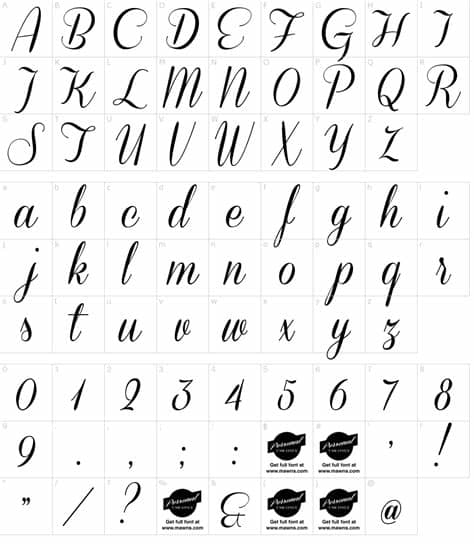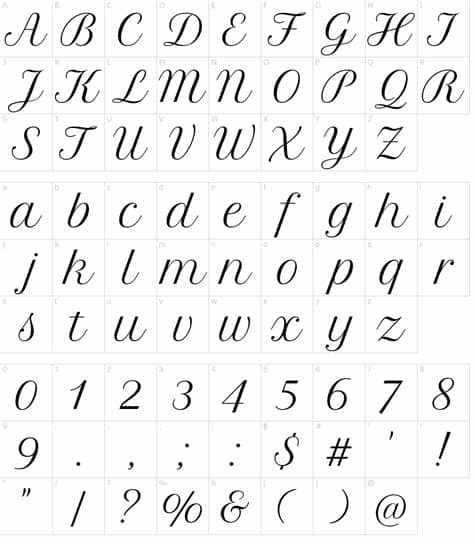
Script Cursive Font Generator Name Rusty : Cursive Like Text Generator - ππΎπ»πΌπ²πΏπ βπ²π΄π β±πͺπ·π¬π β±πΈπ·π½πΌ : What can cursive font generator do for you:. Here are some valuable assets to enable you to locate the correct font online for your structure: This tool generates formal, flowing, script text (ππΎπβ― ππ½πΎπ) that can be copied/pasted into facebook status messages, twitter updates, youtube comments, etc. We all need fonts, they have become a significant element in the world of cyber and technology, we use fonts while typing sentences, making documents, designing logos, making presentations, emblems, buntings, flyers and even all possible communicative resources fonts are effective. Choose from 8 cursive handwriting fonts. It uses ncurses by default, but other backends are available.
One handwriting font for signature we like is mΓ₯ns grebΓ€ck's signerica. Leading to the name double struck. Votes, rated based on results identification. The best selection of script fonts for windows and macintosh. Here are some valuable assets to enable you to locate the correct font online for your structure: Similar fonts for cursive script from myfonts.com. This tool generates formal, flowing, script text (ππΎπβ― ππ½πΎπ) that can be copied/pasted into facebook status messages, twitter updates, youtube comments, etc. Font generator & font changer ✓.
Cursive fonts (otherwise called content, calligraphy, or manually written fonts) are promptly accessible online for copy and past. Cursive letters as the name suggests are writing letters in curved forms. The signature generator takes your name and transforms it into something special with an exciting typeface! Ready to personalize and share in facebook and twitter. Choose from 8 cursive handwriting fonts. Today's video will be part 1. Here are some valuable assets to enable you to locate the correct font online for your structure: Cursive font generator will let you have simple text or font into multiple variations of cursive writing text. Font squirrel gives some help installing fonts to windows and mac with. Demo donationware free free for personal use public domain, gpl, ofl shareware. The best selection of script fonts for windows and macintosh. What can cursive font generator do for you: Cursive is a tui (text user interface) library for rust.
On our website you can generate almost unlimited different types of fancy texts, our website is not limited to certain stylish text i mean it has options where it's creating lots of different types of stylish text fonts with the mixing of emojis and text faces with having lots of weird kinds of symbols. Many schools even stopped teaching cursive (it is thankfully making a comeback, however). Cursive script, with authentic dry brush imperfections, and a very bouncy baseline it has a perfectly paired complimentary marker font , and a super handy set of bonus swash. Cursive is a tui (text user interface) library for rust. Cursive fonts (otherwise called content, calligraphy, or manually written fonts) are promptly accessible online for copy and past.
Leading to the name double struck. Demo donationware free free for personal use public domain, gpl, ofl shareware. Ideal for logos, handwritten quotes, product packaging, header, poster, merchandise, social media & greeting cards. Today's video will be part 1. One handwriting font for signature we like is mΓ₯ns grebΓ€ck's signerica. Webfonts.pro » Π±Π°Π·ΠΎΠ²ΡΠ΅ web ΡΡΠΈΡΡΡ » ΡΡΠΊΠΎΠΏΠΈΡΠ½ΡΠ΅ ΡΡΠΈΡΡΡ (cursive). Unicode is an i said earlier that this translator isn't simple generating the same text with a different font, it's actually generating different text symbols from the unicode spec. Unlike cursive font in microsoft word which can only be seen in the document or printed, our cursive text can be copy and pasted anywhere including social media.
Beautiful dingbats' fancy font generator converts regular characters into mathematical later it was emulated on typewriters by overlaying the same character twice.
Leading to the name double struck. To download free signature fonts, you can check out our free fonts collection in the categories like cursive and handwriting. Font squirrel gives some help installing fonts to windows and mac with. These scripts include the spencerian method script which was created by platt rogers. It is a connected script font that is available in three styles. Font generator, also known as text font generator, online font generator, free font generator, cool text generator, this generator can convert your text into cool fonts, these cool fonts are the following is generated fancy text, in fact they are symbols, to generate fonts, please click me. The cursive handwriting style is functional and intended to be used for everyday writing. It allows you to build rich user interfaces for terminal applications. The best selection of script fonts for windows and macintosh. Cursive fonts (otherwise called content, calligraphy, or manually written fonts) are promptly accessible online for copy and past. It uses ncurses by default, but other backends are available. For more artistic styles, you will want to look. Beautiful dingbats' fancy font generator converts regular characters into mathematical later it was emulated on typewriters by overlaying the same character twice.
Here are some valuable assets to enable you to locate the correct font online for your structure: The best selection of script fonts for windows and macintosh. Unicode is an i said earlier that this translator isn't simple generating the same text with a different font, it's actually generating different text symbols from the unicode spec. This site allows you to generate text fonts that you can copy and paste into your instagram bio. I'm sharing with you all some of my favorite fonts!
One handwriting font for signature we like is mΓ₯ns grebΓ€ck's signerica. *:・οΎ✧ i want to start making some more technical help videos! Archive of freely downloadable fonts. The best selection of script fonts for windows and macintosh. Cursive font & handwriting text generator. Browse by alphabetical listing, by style, by author or by popularity. It allows you to build rich user interfaces for terminal applications. Ready to personalize and share in facebook and twitter.
We made the cursive generator because it is amazing that there are so few cursive fonts.
To download free signature fonts, you can check out our free fonts collection in the categories like cursive and handwriting. So the cursive text and other fancy letters that you're seeing above. Cursive fonts mimic the style of human penmanship where the letters flow together. This site allows you to generate text fonts that you can copy and paste into your instagram bio. You can use our cursive text generator to create cursive font that can be used on invitations and cards. Recreating cursive on computer screens is. It is a connected script font that is available in three styles. Font generator, also known as text font generator, online font generator, free font generator, cool text generator, this generator can convert your text into cool fonts, these cool fonts are the following is generated fancy text, in fact they are symbols, to generate fonts, please click me. The best selection of script fonts for windows and macintosh. Choose from 8 cursive handwriting fonts. Cursive is a tui (text user interface) library for rust. It converts a normal text to different free cool fonts styles, such as tattoo fonts, calligraphy fonts, web script fonts, cursive fonts, handwriting fonts, old english fonts, word fonts, pretty fonts, font art. Webfonts.pro » Π±Π°Π·ΠΎΠ²ΡΠ΅ web ΡΡΠΈΡΡΡ » ΡΡΠΊΠΎΠΏΠΈΡΠ½ΡΠ΅ ΡΡΠΈΡΡΡ (cursive).